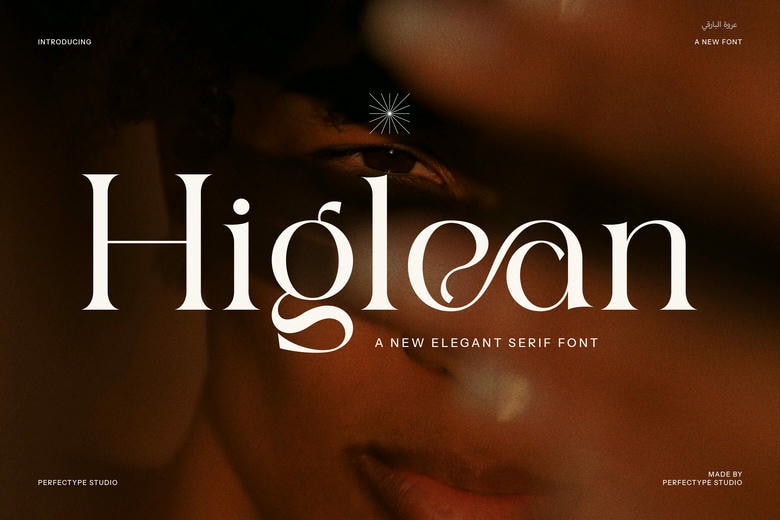
Higlean Font
Higlean Modern Serif Font combines modern elegance with classic charm, giving your work a sleek, sophisticated look. If you want a timeless style with a modern twist, Higlean is a great choice for any creative project. Its unique design and elegant ligatures work well for logos, branding, websites, magazines, product packaging, and ads.
Higlean includes carefully designed alternate letters and unique ligatures that add an artistic touch to your work. These details give your designs a high-end, luxurious feel while still looking clean and modern. Its stylish serifs and balanced shapes make it a good fit for upscale brands, boutique shops, restaurants, and premium products.
Higlean Serif Font